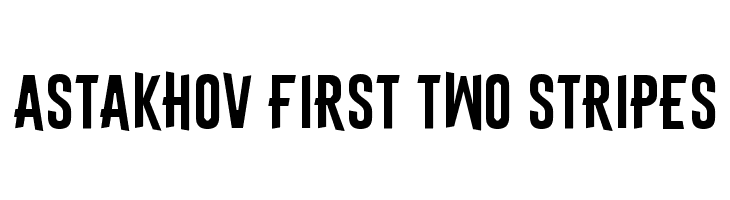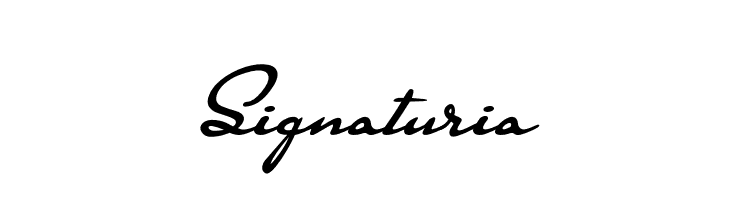
An elegant script font with fluid, connected strokes and a classic handwritten style.
A playful, casual handwritten font with smooth, flowing lines.
A bold, italic font with a dynamic and modern style.
A bold, rounded font with a playful and chunky style.
A bold, sans-serif font with a modern, clean, and structured appearance.
A playful, handwritten font with fluid and dynamic strokes.